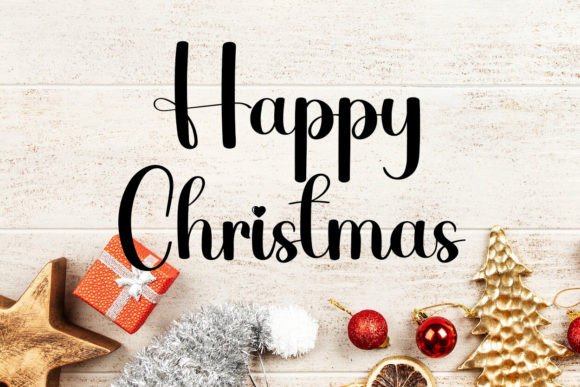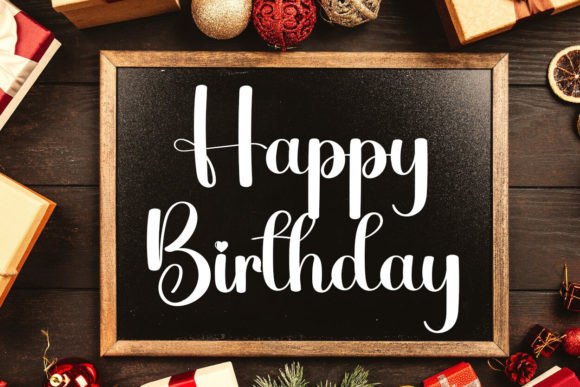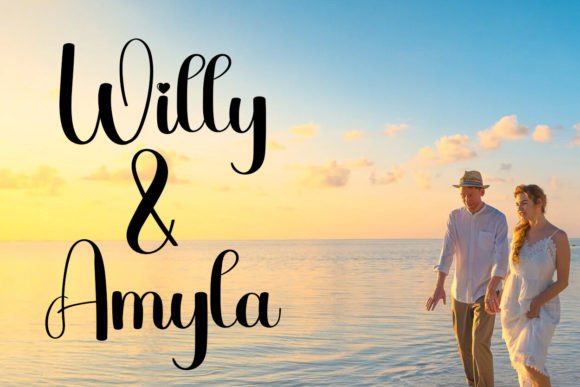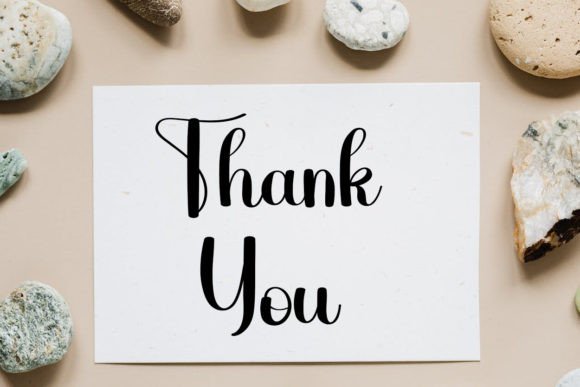
Introducing Daily Holiday Font: Elevate Your Designs with a Fresh and Beautiful Typeface
Are you a designer, crafter, or DIY enthusiast looking for a unique and versatile font to take your creative projects to the next level? Look no further than the Daily Holiday Font! This stunning typeface is perfect for a wide range of design purposes, from YouTube banners and cover logo mockups to wedding invitations, ID cards, flyers, and crafts.
What Makes Daily Holiday Font So Special?
The Daily Holiday Font is a fresh and beautiful font that is sure to capture the attention of your audience. Its simple yet unique design makes it an excellent choice for designers and crafters who want to add a touch of elegance and sophistication to their work. With this font, you can create stunning visual content that stands out from the crowd and leaves a lasting impression.
The Daily Holiday Font is incredibly versatile, making it suitable for a wide range of design applications. Here are just a few ideas to get you started:
- YouTube Banners: Create eye-catching YouTube banners that showcase your brand’s personality and style.
- Cover Logo Mockups: Design professional-looking cover logo mockups that help your clients visualize their brand’s identity.
- Wedding Invitations: Add a touch of elegance to your wedding invitations and save-the-date cards with this beautiful font.
- ID Cards: Create secure and stylish ID cards for your employees, students, or members.
- Flyers: Design attention-grabbing flyers that promote your business, event, or cause.
- Crafts: Use the Daily Holiday Font to add a personal touch to your handmade crafts, such as scrapbooking, card making, or DIY projects.
Benefits of Using Daily Holiday Font
By incorporating the Daily Holiday Font into your design workflow, you can experience a range of benefits, including:
- Improved Brand Identity: Create a consistent visual brand identity that reflects your business’s personality and values.
- Increased Engagement: Use the font to create visually appealing content that resonates with your audience and encourages engagement.
- Time-Saving: With a versatile font like Daily Holiday, you can save time and effort by using a single typeface across multiple design projects.
- Unique Designs: Stand out from the competition with unique and creative designs that showcase your skills and style.
Why Choose Daily Holiday Font?
So, why should you choose the Daily Holiday Font for your design needs? Here are just a few compelling reasons:
- Simple and Unique: The font’s simple yet unique design makes it easy to read and recognize.
- Fresh and Beautiful: The Daily Holiday Font has a fresh and beautiful aesthetic that will elevate your designs and capture your audience’s attention.
- Good for Business: By using this font, your business will progress and develop, helping you achieve your goals and objectives.